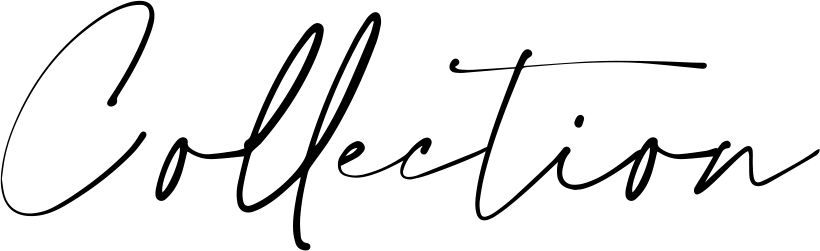
Collection Font
This autograph font is created with the artistic dancing of a pencil on paper. Its thin and elegant design will go amazingly well in any greeting cards, posters, quotes, headers, branding, logo, and more with its natural and friendly effect. Due to its difficult readability, it should be avoided in any formal text body.